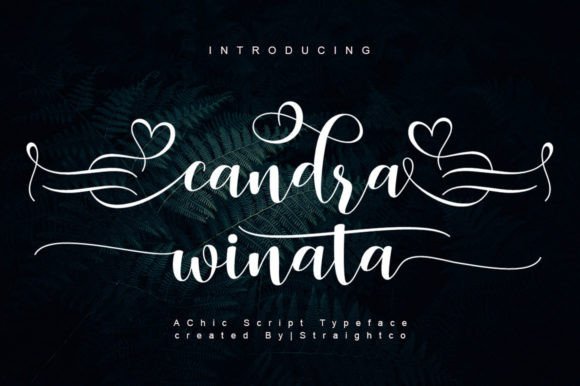
Candra Winata Font: Elevate Your Designs with Elegance
In the world of typography, a font can make or break a design. For designers and crafters, finding the perfect font that adds a touch of elegance and sophistication to their creations can be a daunting task. However, if you’re looking for a ravishing script font that can elevate your designs, look no further than Candra Winata. This beautifully crafted font is a lovely asset to any font library, and its versatility makes it suitable for a wide range of projects.
The Beauty of Candra Winata
Candra Winata is a stunning script font that boasts intricate details and a high level of craftsmanship. Its elegant strokes and curves make it perfect for designs that require a touch of sophistication and glamour. Whether you’re working on a branding project, a wedding invitation, or a packaging design, Candra Winata is sure to impress. The font’s neat and tidy structure ensures that it remains legible, even at smaller sizes, making it a versatile choice for various applications.
PUA Encoding: Easy Access to Glyphs and Ligatures
One of the standout features of Candra Winata is its PUA (Private Use Area) encoding. This means that you can access all glyphs and ligatures with ease, giving you complete creative control over your designs. With PUA encoding, you can effortlessly insert special characters, swashes, and other unique elements that will take your designs to the next level. This feature makes Candra Winata a joy to work with, as you can experiment with different combinations of glyphs and ligatures to create truly unique pieces.
Candra Winata’s versatility is one of its greatest strengths. This font can be used for a wide range of projects, from:
• Branding and logos: Create stunning brand identities with Candra Winata’s elegant script.
• Wedding invitations: Add a touch of romance and sophistication to your wedding stationery.
• Packaging design: Elevate your product packaging with Candra Winata’s luxurious feel.
• Advertising: Create eye-catching ads that demand attention with this beautiful script font.
• Stationery: Design beautiful stationery, including business cards, letterheads, and more.
Why Choose Candra Winata?
With so many fonts available, why choose Candra Winata? Here are just a few reasons:
• Unique and elegant design: Candra Winata stands out from the crowd with its distinctive script style.
• Highly legible: Despite its intricate details, Candra Winata remains easy to read, even at smaller sizes.
• PUA encoded: Enjoy effortless access to glyphs and ligatures, giving you complete creative control.
• Versatile: Suitable for a wide range of projects, from branding to packaging design.
In conclusion, Candra Winata is a truly exceptional script font that deserves a place in every designer’s font library. Its elegant design, versatility, and PUA encoding make it an asset that can enhance any creation. Whether you’re a seasoned designer or a crafty DIY enthusiast, Candra Winata is sure to inspire your next project. So why wait? Add Candra Winata to your collection today and discover the endless design possibilities it has to offer!
Get Creative with Candra Winata
Ready to take your designs to the next level with Candra Winata? Here are some tips to get you started:
• Experiment with different glyphs and ligatures to create unique combinations.
• Pair Candra Winata with other fonts to create striking contrasts.
• Use Candra Winata for headlines, titles, and other display text to add a touch of elegance.
• Don’t be afraid to get creative and try new things – Candra Winata is a font that rewards experimentation!